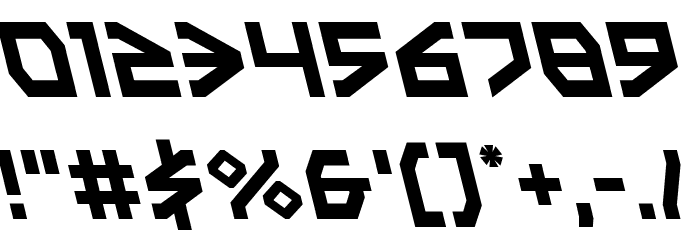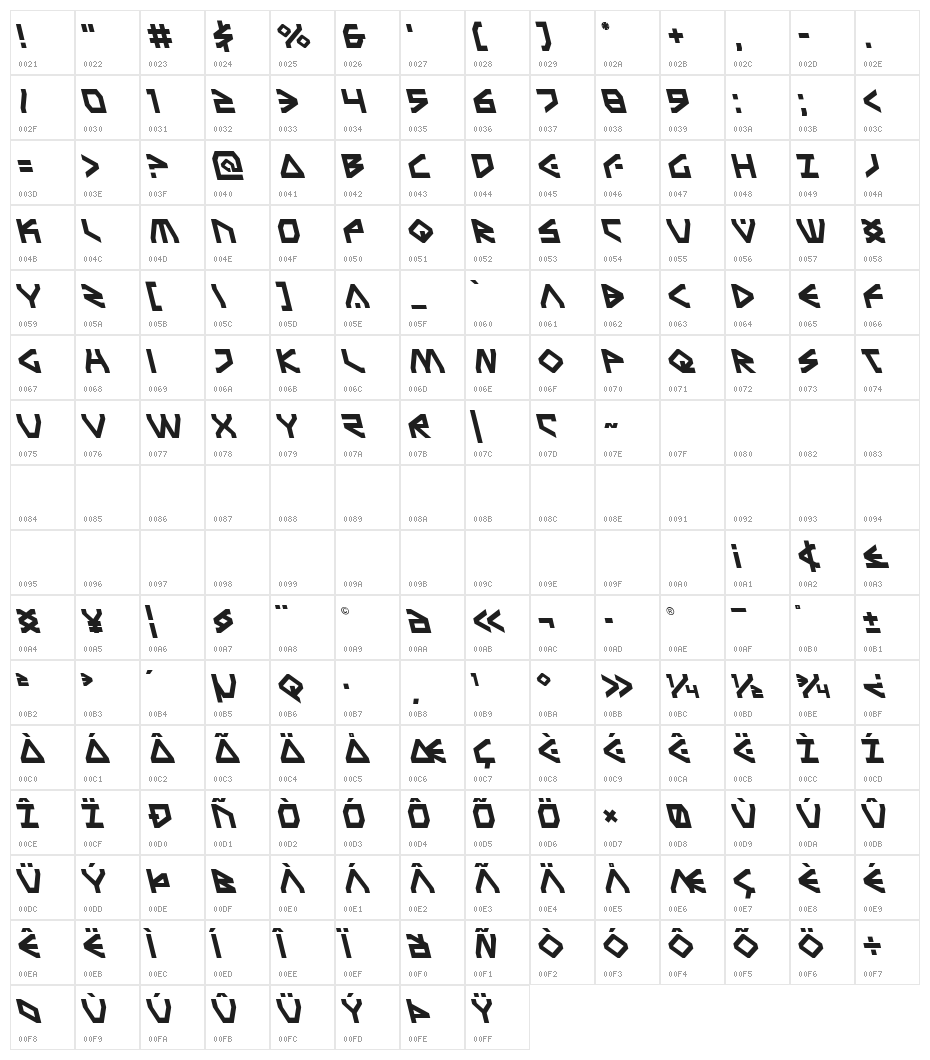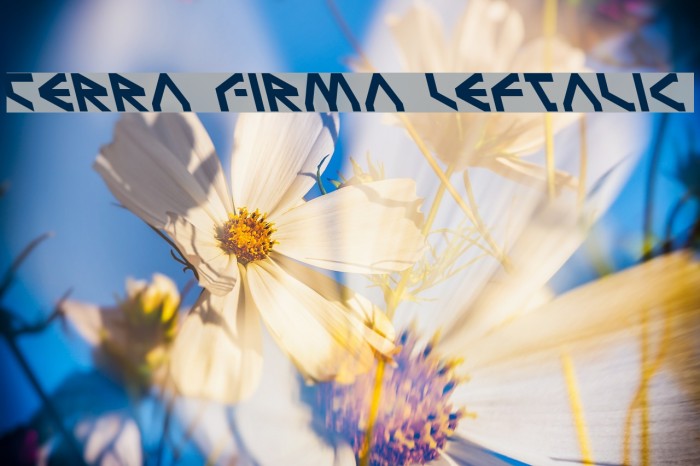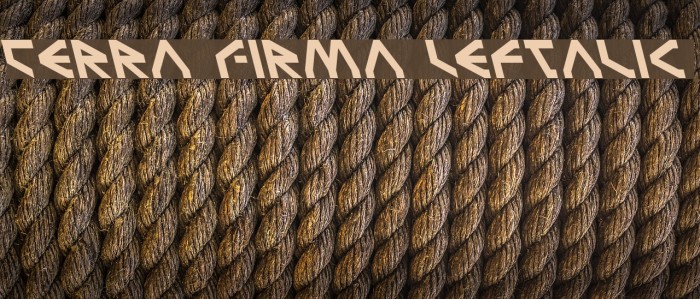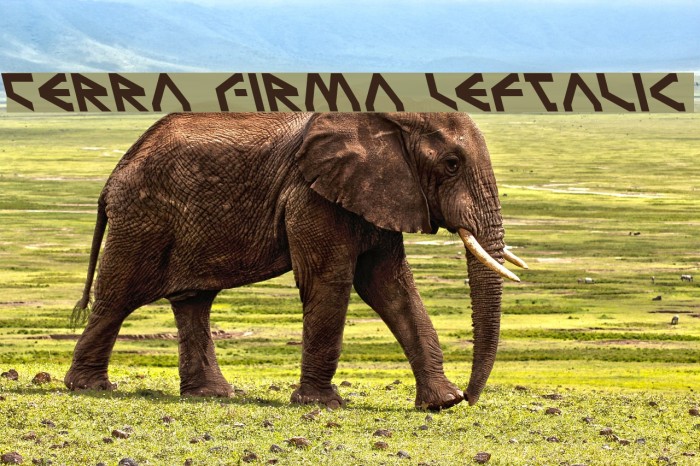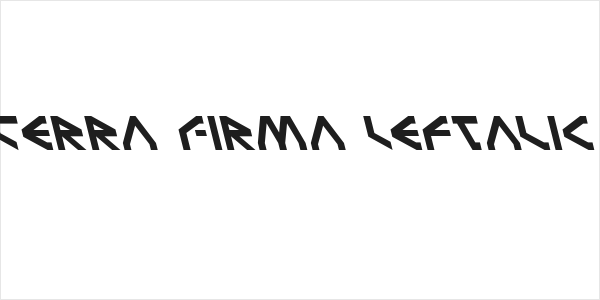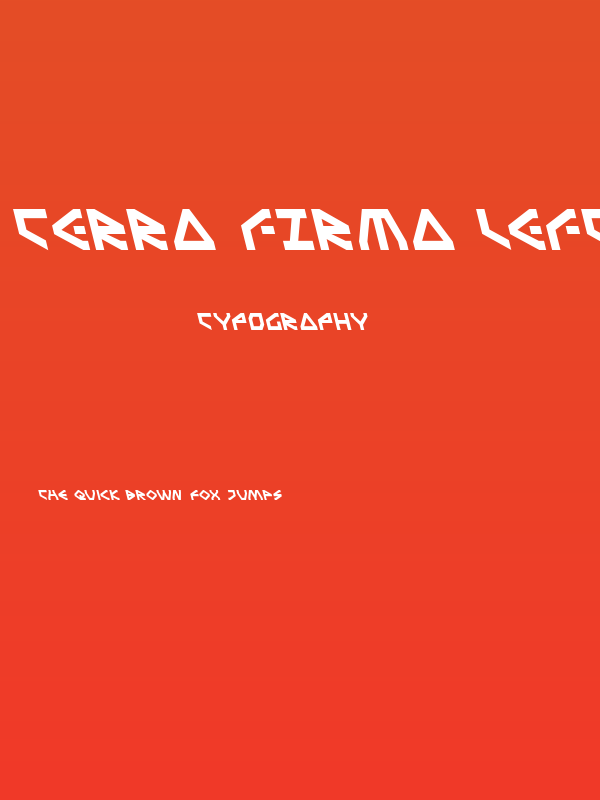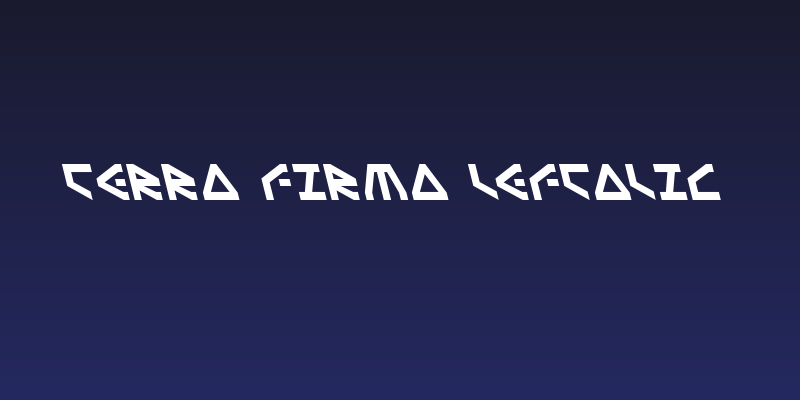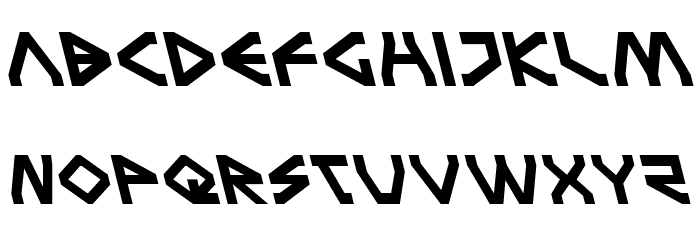
Terra Firma Leftalic Font
Terra Firma Leftalic Description
This font features a bold and angular design, characterized by sharp edges and geometric forms. The uppercase and lowercase letters maintain a consistent angular style, creating a cohesive and striking appearance. The numbers and special characters follow the same design principles, ensuring uniformity across all glyphs. The font's unique style is reminiscent of futuristic or sci-fi themes, making it stand out in any design project. Its boldness and distinct angles make it highly legible, even at smaller sizes, while the consistent stroke width adds to its modern aesthetic.
| Overall Style | Futuristic, Modern |
| Proposed Projects | Ideal for sci-fi themed projects, video game titles, posters, and branding that requires a modern and edgy look. |